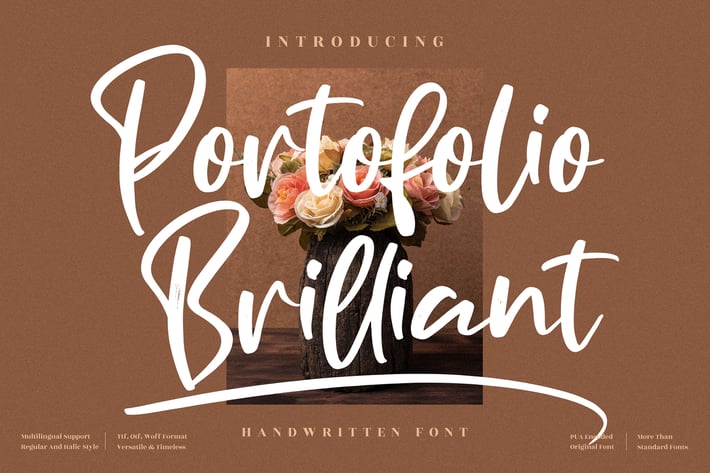
Portofolio Brilliant Script Font
Portofolio Brilliant is a bold handwritten script with energetic strokes and a confident, creative flow. Its expressive lettering brings a fresh, modern personality to any design—perfect for artistic branding, impactful social media visuals, and layouts that need a lively, handcrafted touch.
Bold handwritten script with dynamic, expressive strokes
Clear, stylish letterforms ideal for headlines and logos
Natural brush-style movement for an authentic handmade feel
Suitable for both digital creatives and printed branding materials
Creative branding & logo design
Social media posts & promotional graphics
Photography watermarks & portfolio covers
Posters, quote designs, and expressive layouts
Packaging, labels, and lifestyle products
Invitations, cards, and personal projects
Bold handwritten energy for designs that feel creative and full of personality.